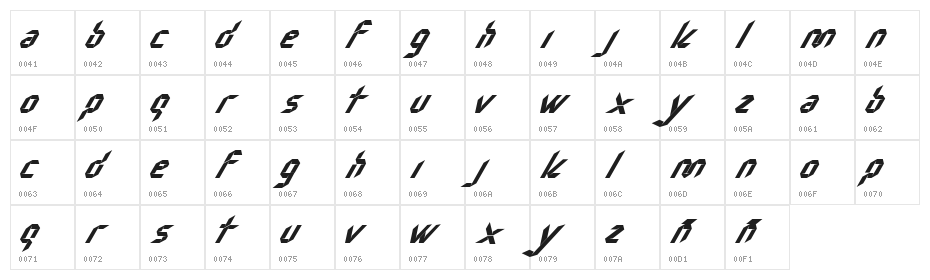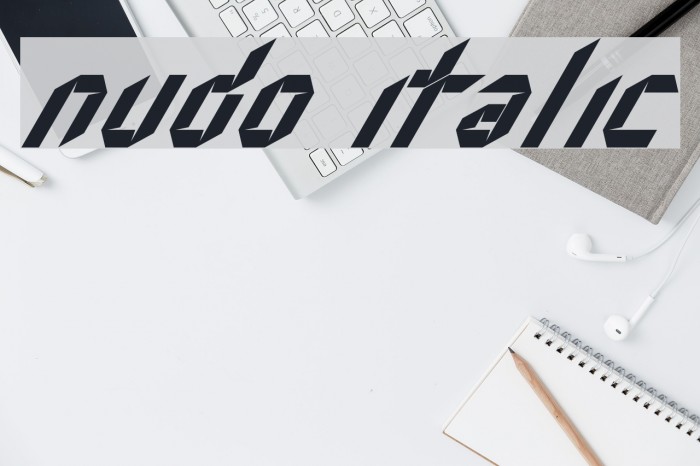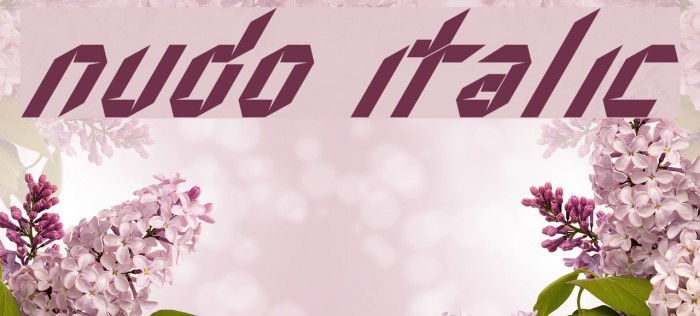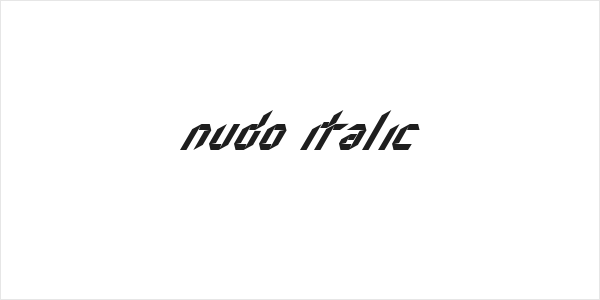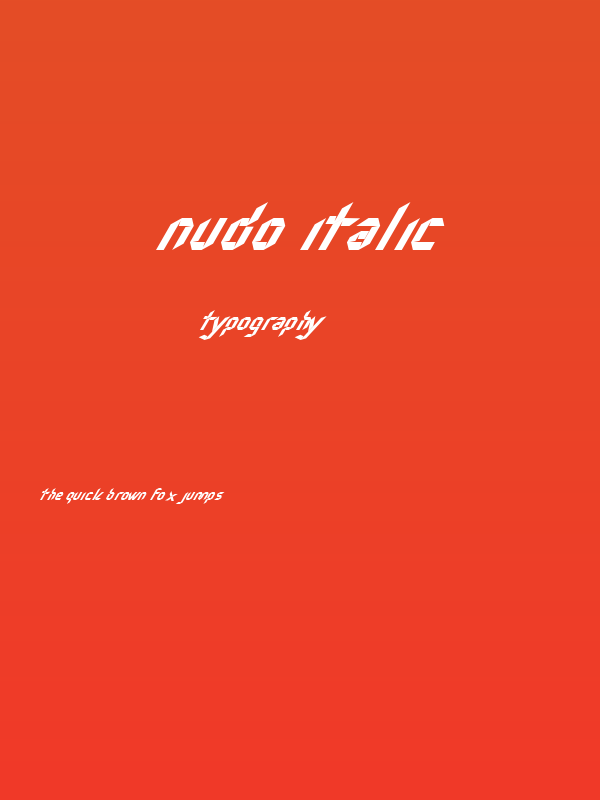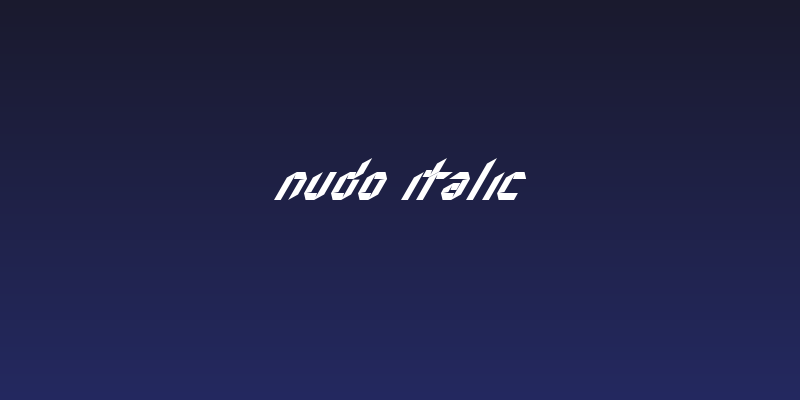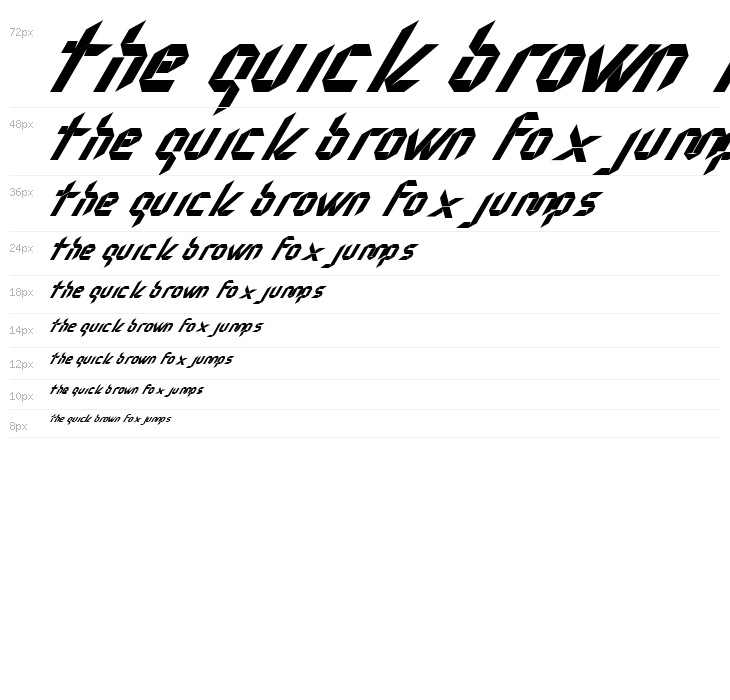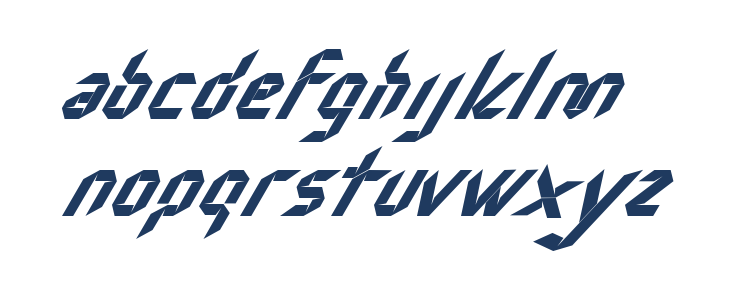
Nudo Italic Font
Nudo Italic Description
This font features a bold, italicized style with sharp, angular lines and a futuristic aesthetic. The characters are designed with a distinct slant, giving them a dynamic and energetic appearance. The strokes are thick and consistent, providing a strong visual impact. The overall design is modern and edgy, making it suitable for projects that require a bold statement. The font maintains a consistent width across characters, ensuring uniformity and balance. Its unique style makes it ideal for creative and unconventional designs.
| Proposed Projects | Ideal for branding, posters, album covers, and any project requiring a bold, modern statement. |